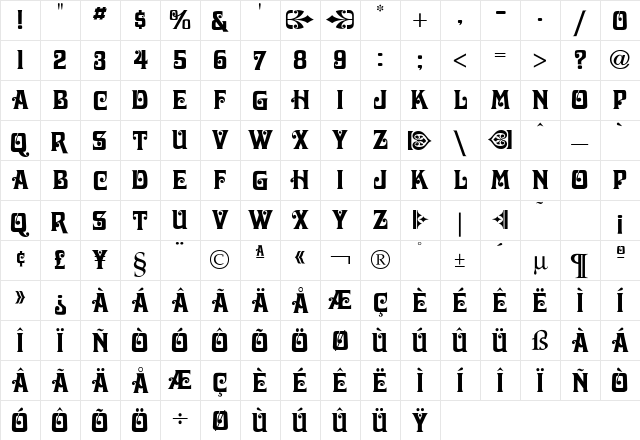
Victoriana Display SSi Regular
Design Context for Victoriana Display SSi Typeface
Victoriana Display SSi is built around its visual character rather than neutral utility — its distinctive forms are designed to make an impression at display sizes.
Font Pairing: Pair with a clean neutral sans-serif for body copy to let Victoriana Display SSi's character lead without overwhelming the composition.
Pro Tip: Treat Victoriana Display SSi as the centrepiece of your typographic hierarchy. One strong heading set in a decorative face can carry an entire layout.